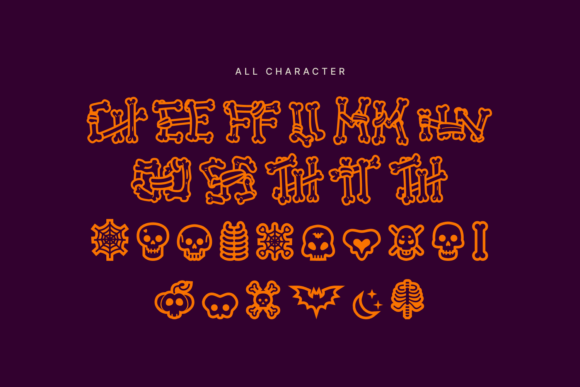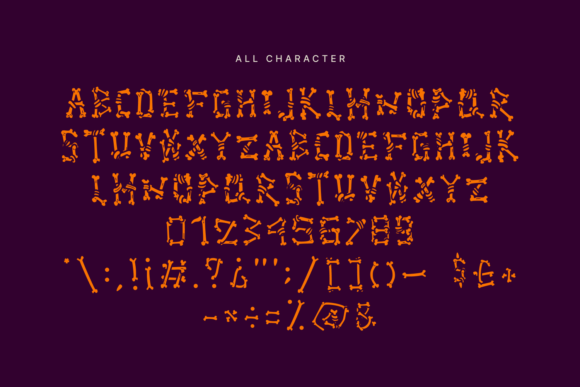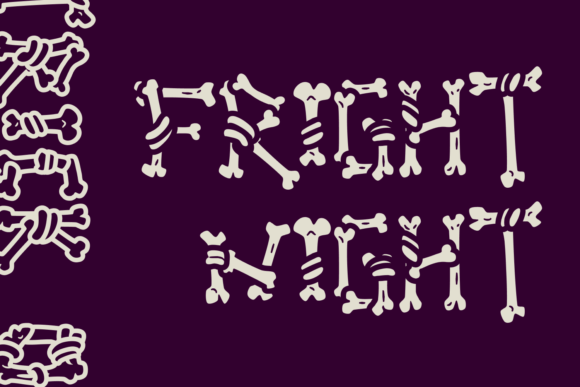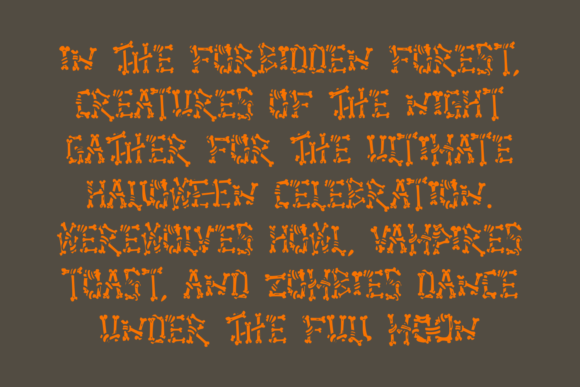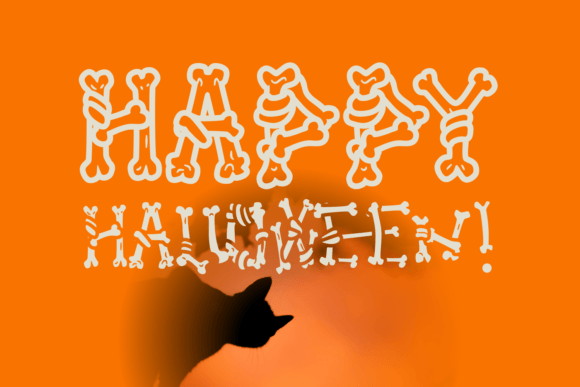
Add a Chilling Touch to Your Halloween Designs with Ghoul Bones Font
As the spookiest time of the year approaches, designers and crafters are on the lookout for the perfect elements to make their Halloween projects stand out. If you’re searching for a font that will add a chilling touch to your designs, look no further than Ghoul Bones. This dual font and icon set is packed with endless possibilities for creating spooky and eye-catching graphics that will leave a lasting impression.
What is Ghoul Bones Font?
Ghoul Bones is a unique and versatile font and icon set designed specifically for Halloween-themed projects. The set includes a range of bone-chilling characters, from letters and numbers to icons and symbols, all crafted to create a hauntingly beautiful aesthetic. With Ghoul Bones, you can add a touch of spookiness to any design, from haunting posters and wicked invitations to creepy crafts and eerie digital art.
Key Features of Ghoul Bones Font
• Dual Font and Icon Set: Ghoul Bones offers both a font and an icon set, providing you with a wide range of creative possibilities.
• Endless Design Options: With Ghoul Bones, you can create anything from simple posters to intricate digital art, all with a unique and spooky twist.
• High-Quality Design: Each character and icon in the Ghoul Bones set has been carefully crafted to ensure a high level of detail and quality.
Design Ideas with Ghoul Bones Font
With Ghoul Bones, the design possibilities are endless. Here are a few ideas to get you started:
• Haunting Posters: Create eye-catching posters for Halloween events or parties using Ghoul Bones to add a spooky touch.
• Wicked Invitations: Design creepy invitations for Halloween-themed events, complete with Ghoul Bones font and icon set.
• Creepy Crafts: Use Ghoul Bones to add a chilling touch to your Halloween crafts, such as decorations, cards, and gift tags.
• Eerie Digital Art: Create hauntingly beautiful digital art using Ghoul Bones, perfect for social media posts, blog headers, or website graphics.
Tips for Using Ghoul Bones Font
To get the most out of Ghoul Bones, here are a few tips:
• Experiment with Different Colors: Try pairing Ghoul Bones with different colors to create a unique and eye-catching design.
• Mix and Match Fonts: Combine Ghoul Bones with other fonts to create a bold and striking design.
• Add Texture and Patterns: Incorporate texture and patterns into your design to add depth and interest.
• Play with Icon Sizes: Experiment with different icon sizes to create visual interest and hierarchy in your design.
If you’re looking to add a chilling touch to your Halloween designs, Ghoul Bones font and icon set is the perfect choice. With its unique and versatile design, Ghoul Bones offers endless possibilities for creating spooky and eye-catching graphics. Whether you’re a designer, crafter, or simply a Halloween enthusiast, Ghoul Bones is sure to inspire your creativity and help you create unforgettable Halloween designs.